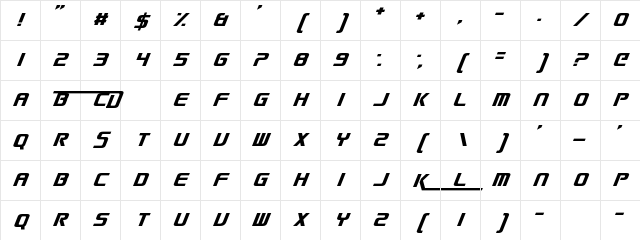
Complete Smack Laideth Down 2016 Oblique Regular glyph index. Displaying only characters natively supported by Smack Laideth Down 2016 Oblique Regular font.
Smack Laideth Down 2016 Oblique is a composed and adaptable typeface that performs quietly and consistently across a wide range of design contexts. The slanted form adds forward momentum and visual energy.
Pro Tip: Use Smack Laideth Down 2016 Oblique for emphasis, pull quotes, and subheadings where its slanted energy can add rhythm to the layout.